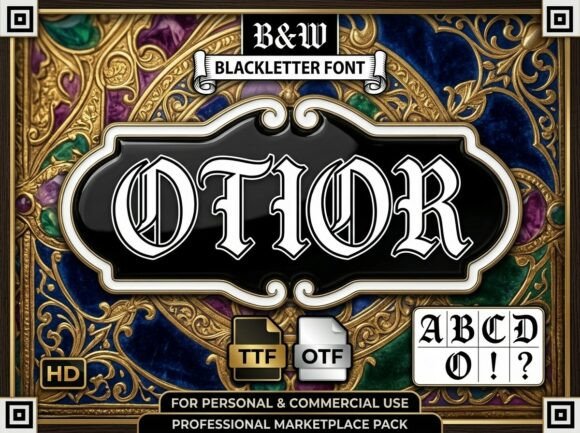
Introduction to Otior Font
Command attention with Otior, a formidable blackletter typeface that captures a “gothic-and-grand” soul.
This font features classic, high-contrast fraktur letterforms uniquely characterized by rhythmic, hand-drawn sharp angles and decorative “spurred” midsections that bridge the gap between medieval manuscript calligraphy and modern premium branding With its heavy structural weight and authoritative personality, Otior is the premier choice for independent artisanal brewery labels, luxury leather goods branding, historical book cover designs, and high-impact “stately-and-strong” social media headers.